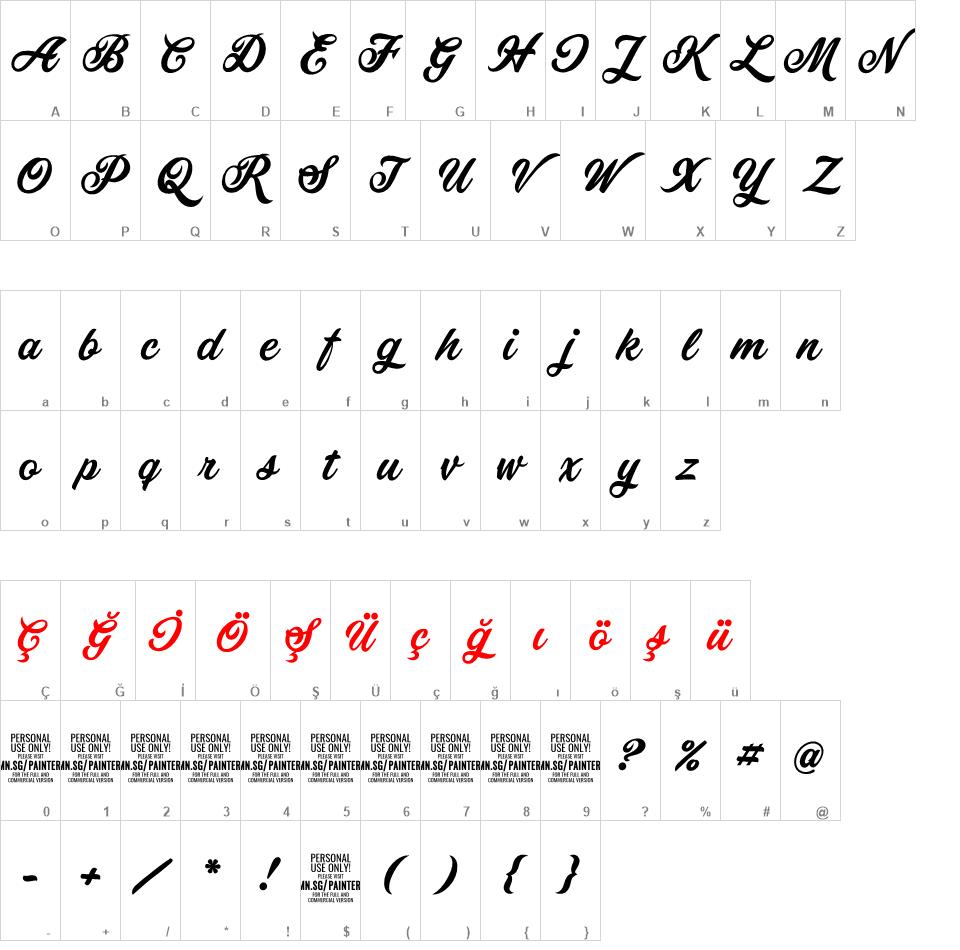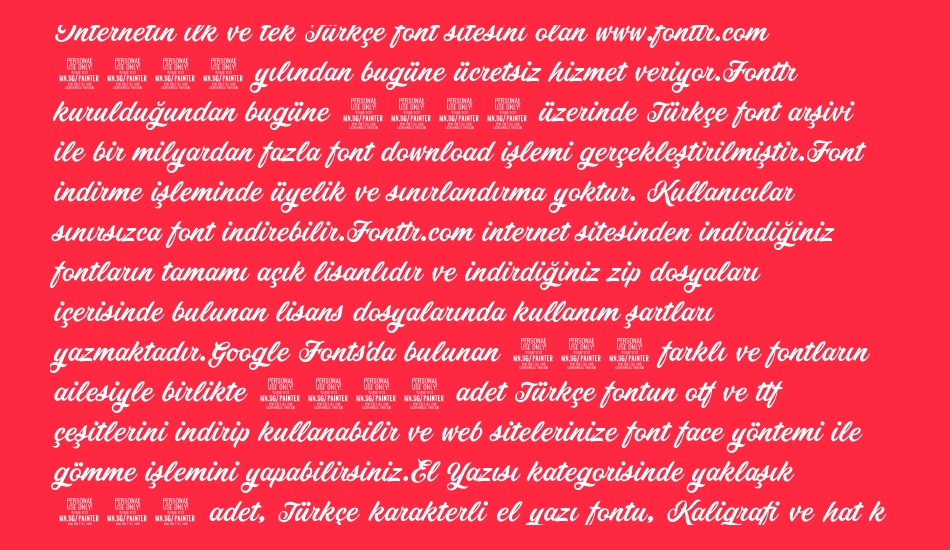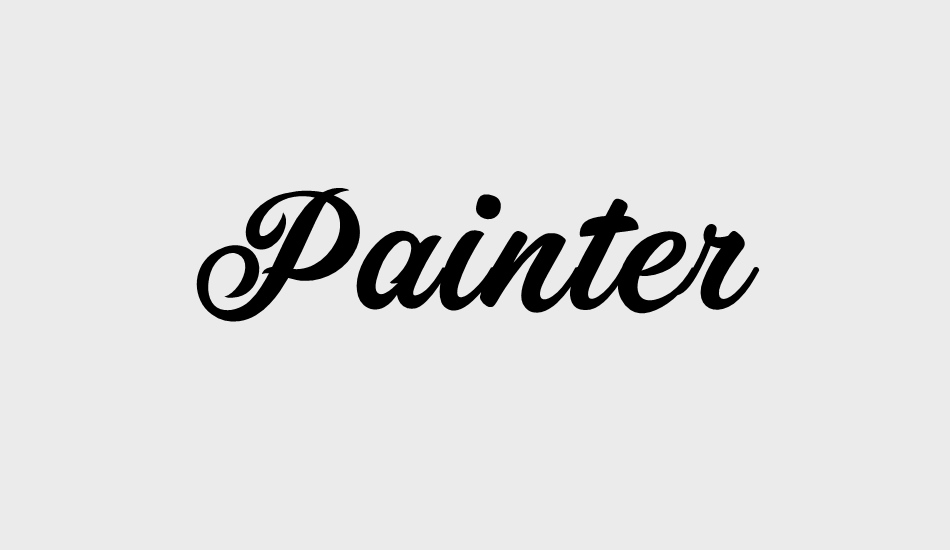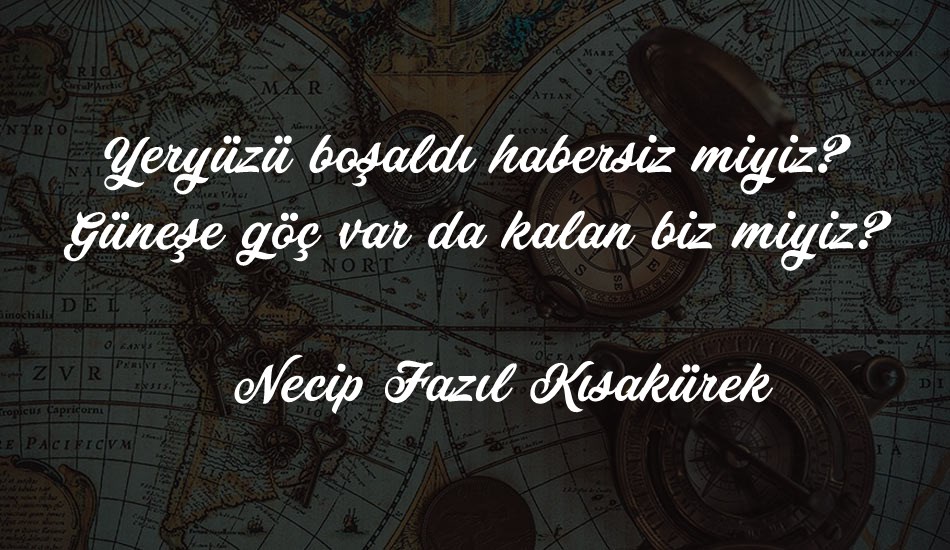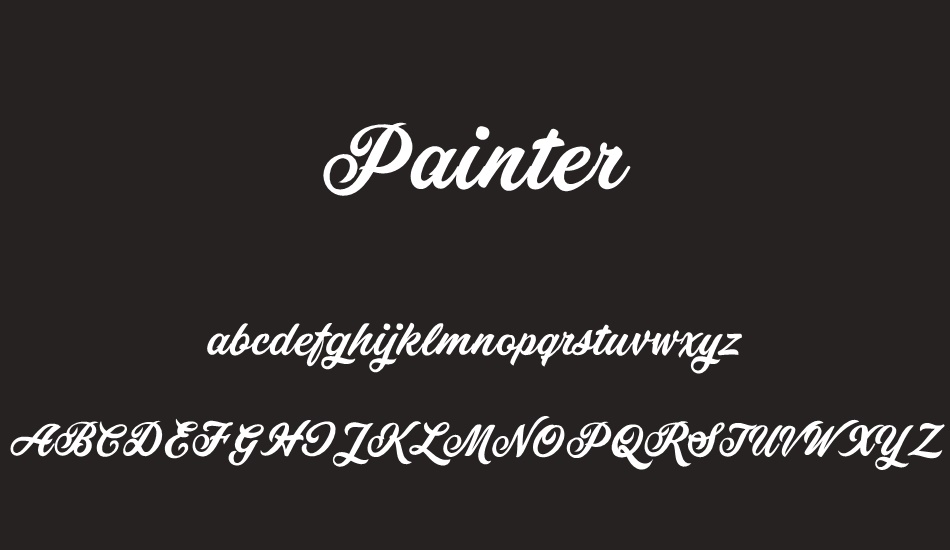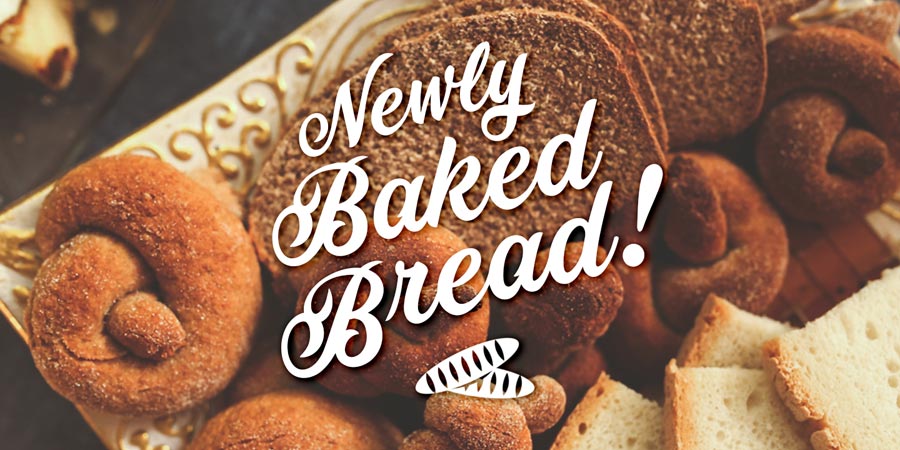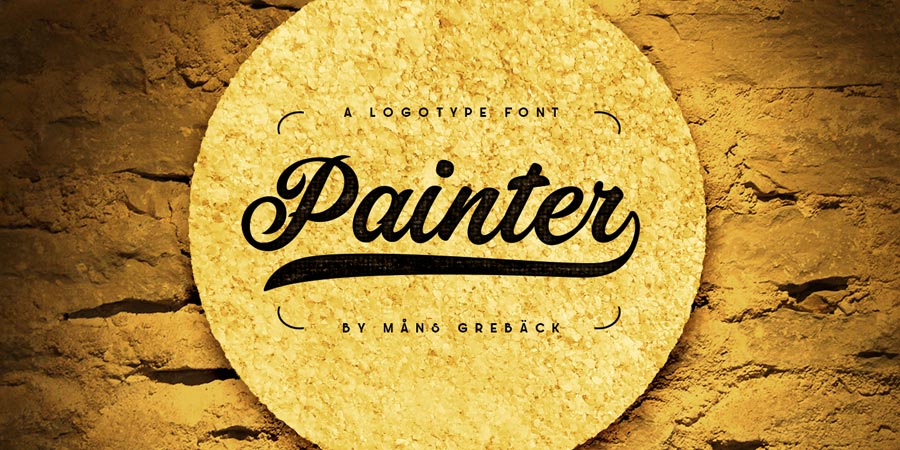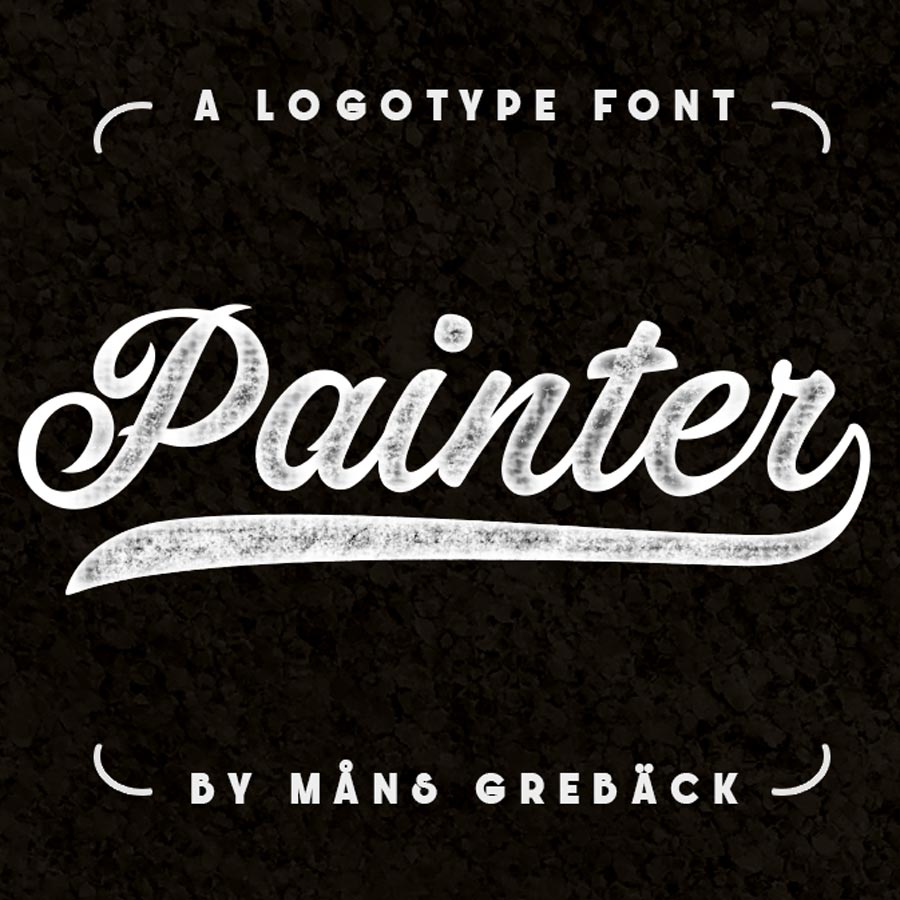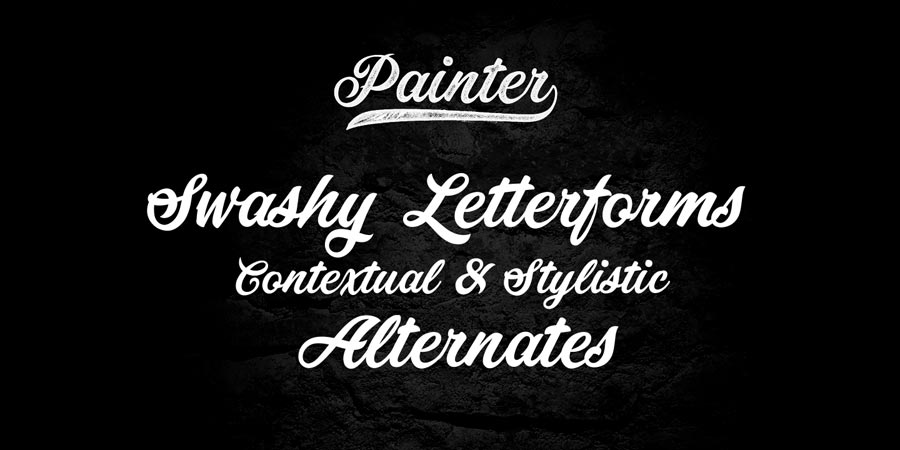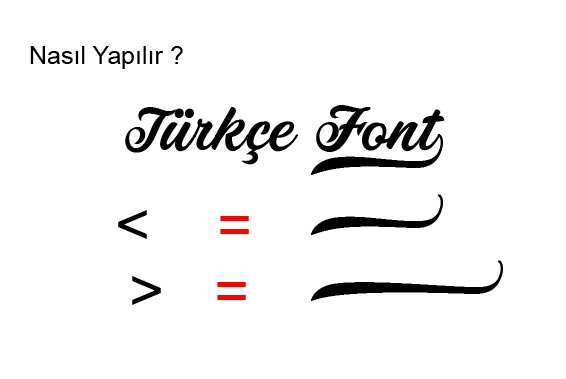
Painter font
Painter is a bold script font, with wide and wet brush strokes.
It is articulate and clean, holds a high quality and comes with many features.
Some of them are contextual and stylistic alternates, support for hundreds
of languages, ligatures and a lot of special characters.
The typeface is created by M?ns Greb?ck and works great for logotypes and
other graphics that require a confident, handcrafted impression.
Use > or < after a word to add a swash effect.
Example: Painter>